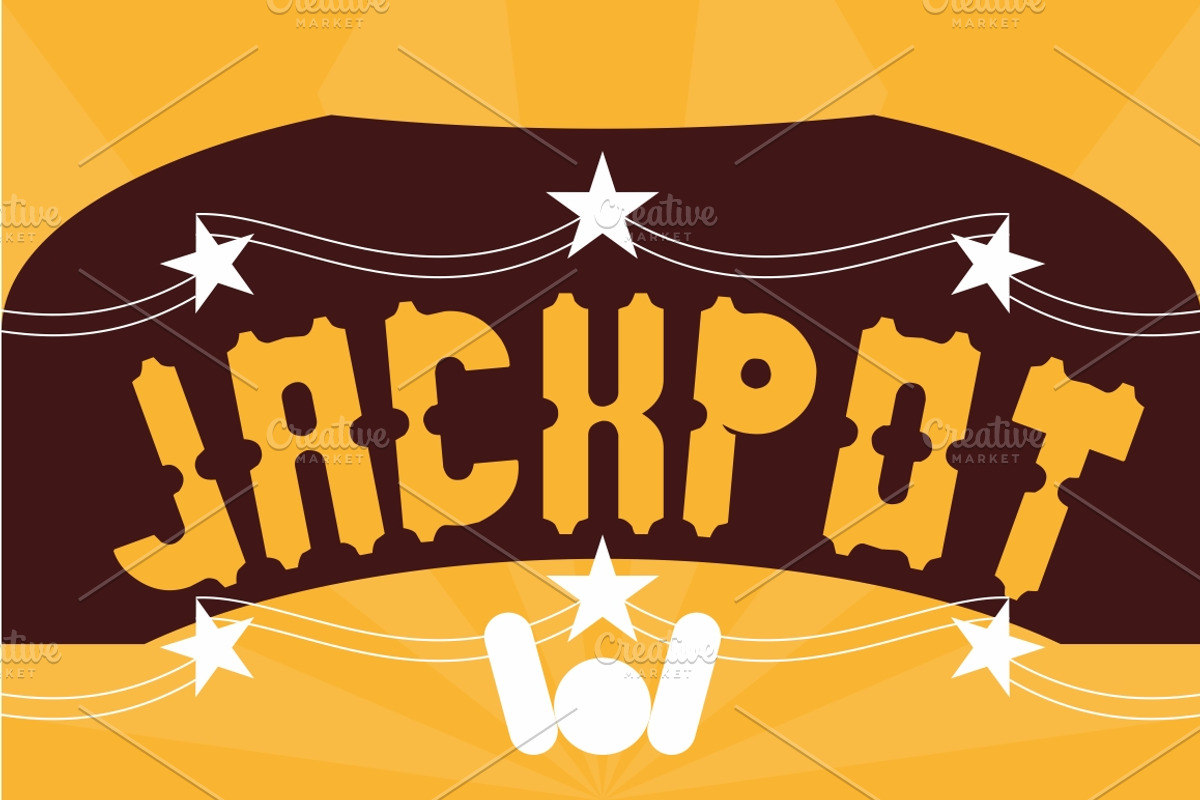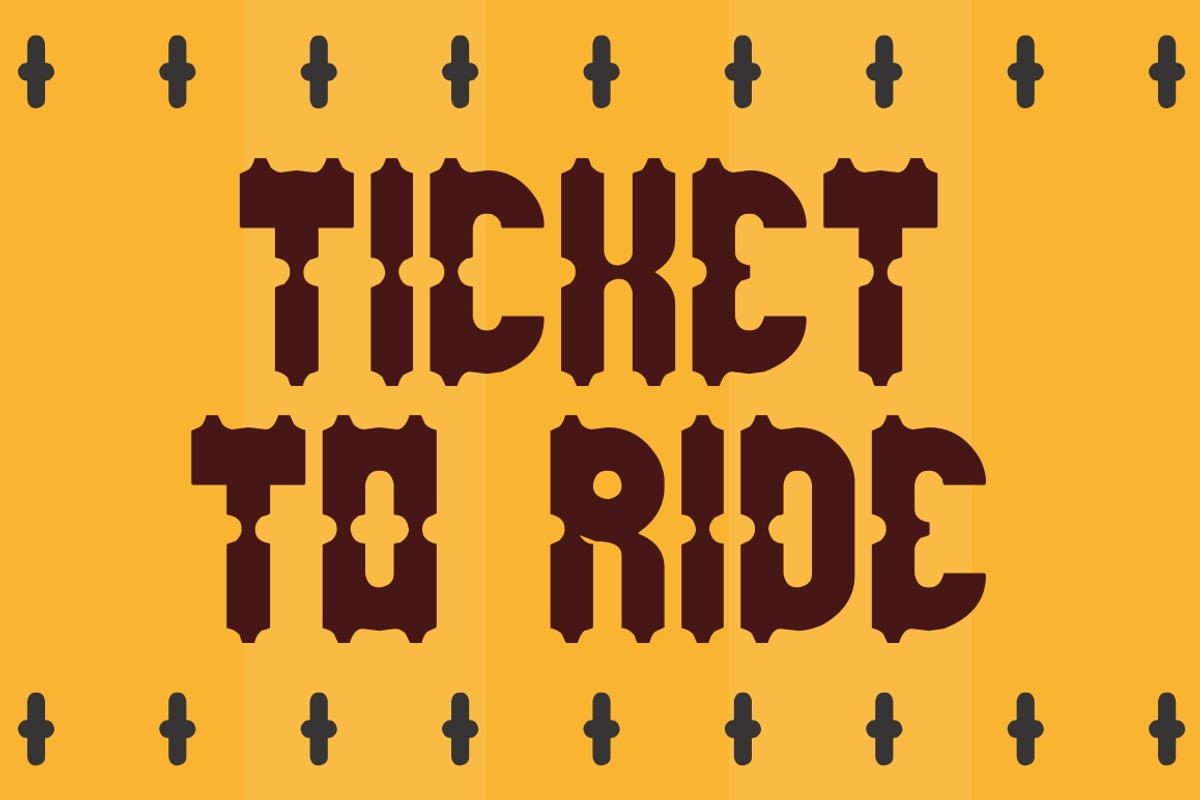
antique retro font
antique retro font by weknow is a font selected for branding, posters, packaging, typography.
Why antique retro font is worth a look
antique retro font by weknow fits naturally into Branding, posters, packaging, typography.